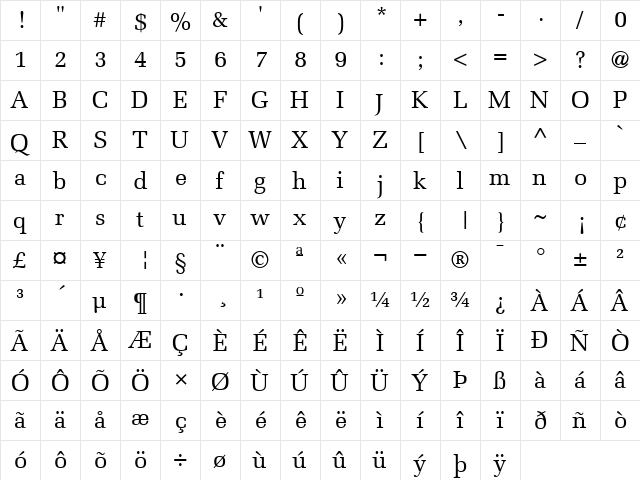
Melior Roman
Design Context for Melior Typeface
Melior is a composed and adaptable typeface that performs quietly and consistently across a wide range of design contexts.
Pro Tip: Use Melior in both headline and body roles to test its range before committing to a single application.